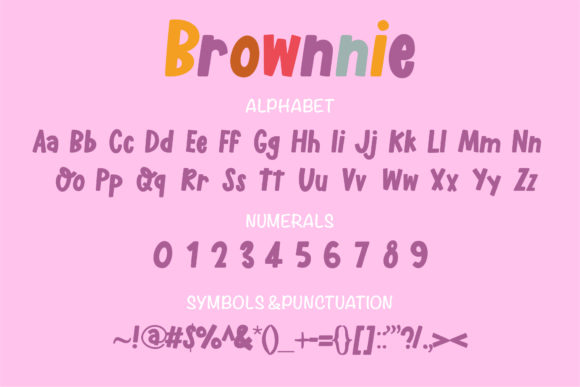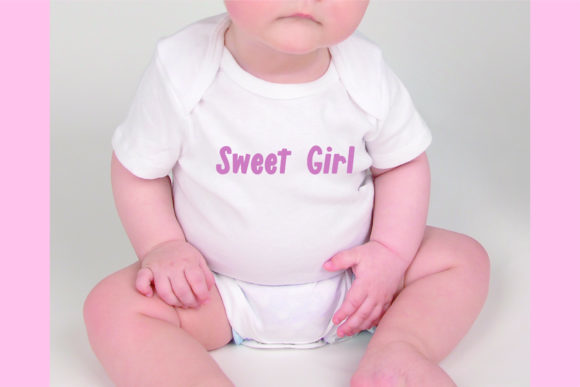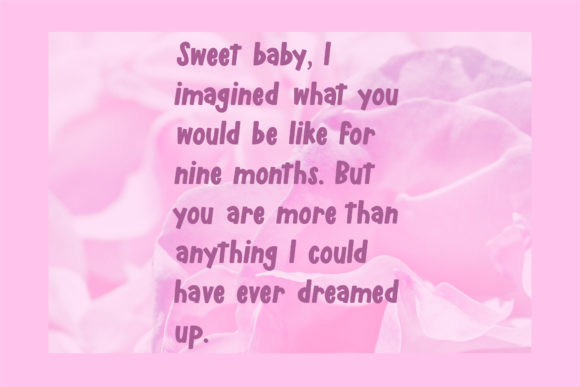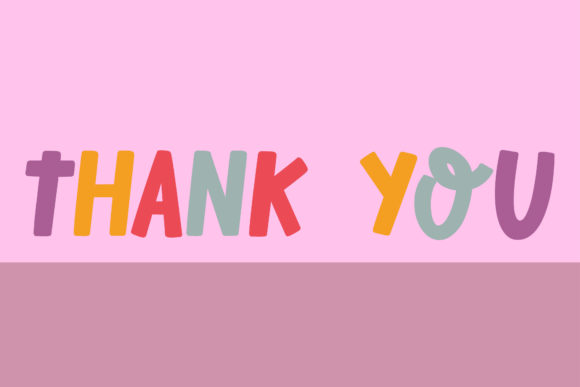
The Perfect Treat for Your Next Design Project
You know that moment when you’re brainstorming ideas for a new design project and suddenly, a spark of creativity hits you? It’s like stumbling upon a hidden treasure, and in this case, that treasure is the Brownie Font. This delightful display font is sure to add a playful touch to your designs, making them stand out from the crowd.
| 👤 Author | GoodMoodType |
With its thick, bold letters, Brownie Font is the perfect companion for designers looking to add a friendly and approachable vibe to their work. Whether you’re creating a social media campaign, a logo, or a branding material, this adaptable font will seamlessly fit into your design ideas. As a valuable addition to any designer’s toolkit, the Brownie Font is a must-have for anyone looking to bring a smile to their audience’s faces.
Brownie Font Key Features
- Font Family: Brownie Font is a sans-serif font family.
- Unique Characteristics: Brownie Font features a modern, clean design with rounded edges and a friendly feel.
Brownie Font Review
Overall, I think the Brownie Font has some great qualities, but it also has some limitations that might make it less suitable for certain designs. Here are my honest thoughts.
- The font’s warmth and coziness are perfect for creating a welcoming atmosphere, especially in food or lifestyle designs.
- The font’s versatility allows it to be used for a wide range of applications, from headings to body text.
- The font’s unique characteristics give it a distinctive feel that can help designs stand out from the crowd.
- The font may not be the best choice for designs that require a lot of technical or scientific content, as it can come across as a bit too casual.
- The font’s irregularities can make it difficult to read at smaller font sizes.
- The font may not be suitable for designs that require a lot of fine details, as its rough texture can make it hard to distinguish between certain letters.
The Brownie Font is a unique and charming font that can add a lot of personality to designs. However, it may not be the best choice for every project. If you’re looking for a font that can create a cozy and inviting atmosphere, the Brownie Font might be a great fit. But if you need a font that’s more formal or technical, you might want to consider something else.
Getting the Most Out of the Brownie Font
Use the Brownie Font for food-related designs, such as recipes, menus, or baking logos.
Pair the font with bold, bright colors to create a playful and eye-catching design.
Experiment with different font sizes and styles to add visual interest to your design.
Food blogs
Cookbooks
Baking businesses
Restaurant menus
Q: Is the Brownie Font suitable for digital and print applications?
Yes, the Brownie Font is designed to be versatile and suitable for both digital and print applications. It’s optimized for use on screens and paper, with clear and legible characters in various sizes and resolutions.